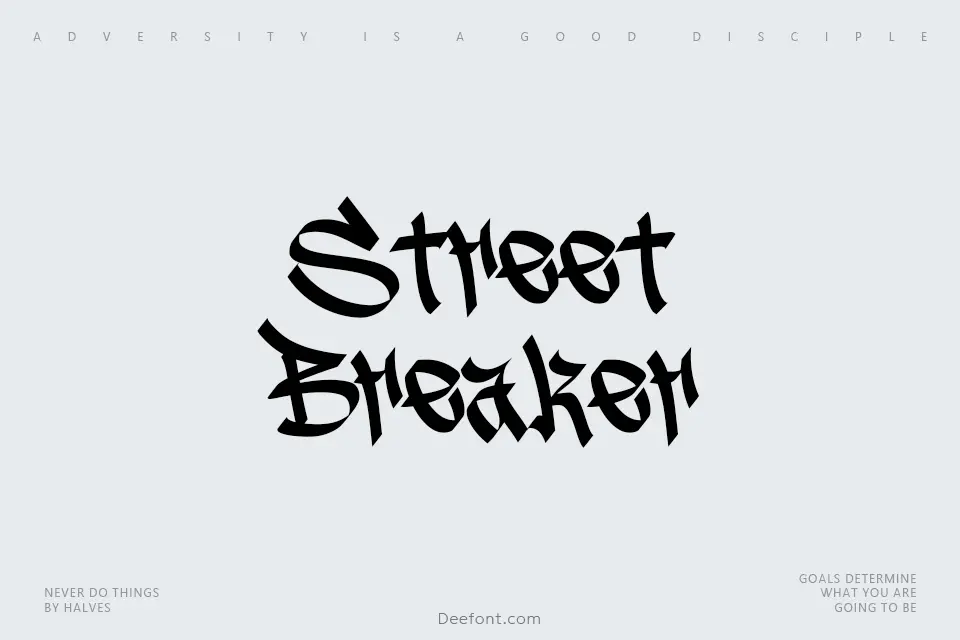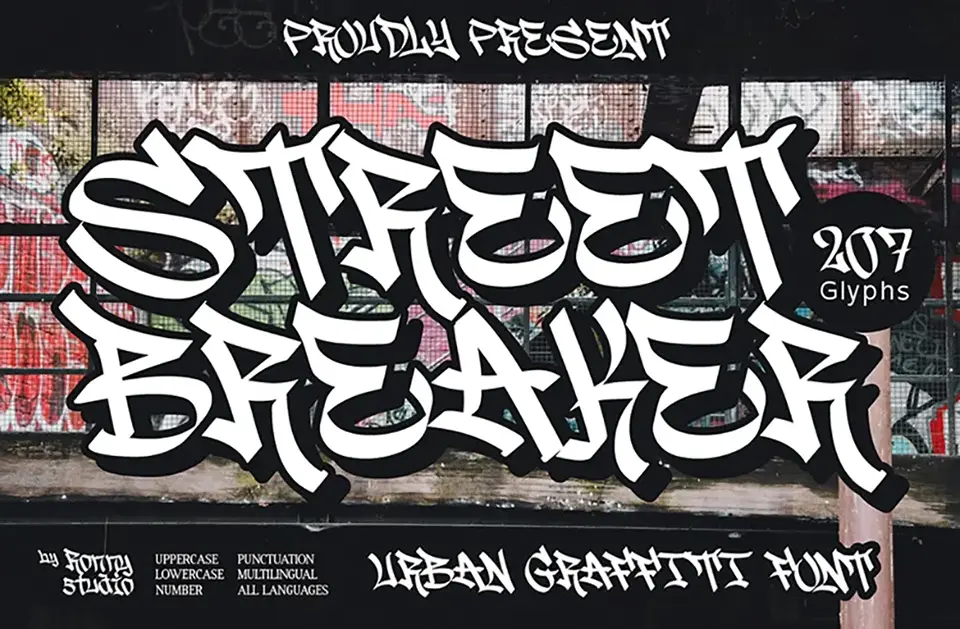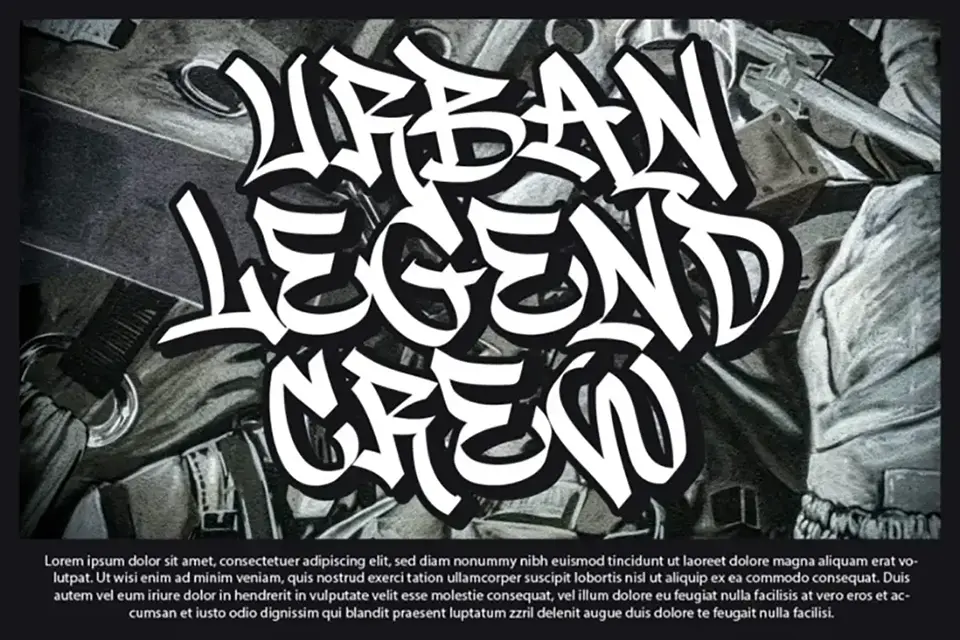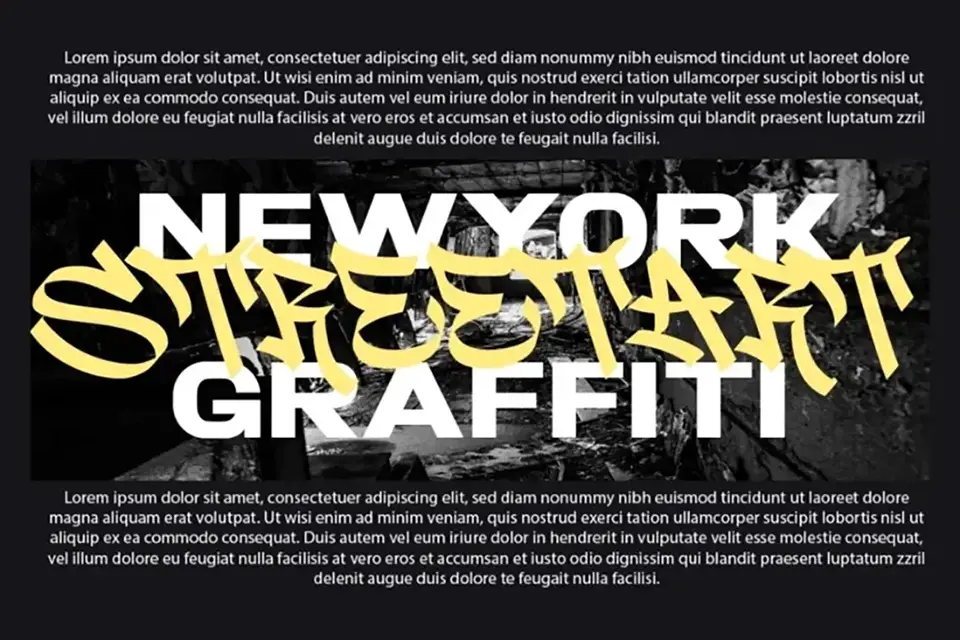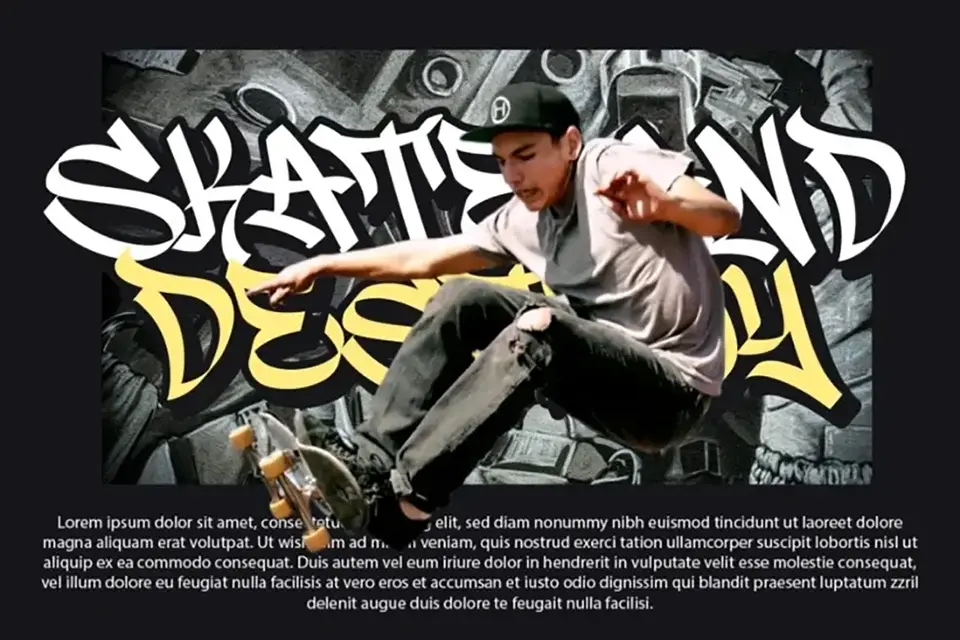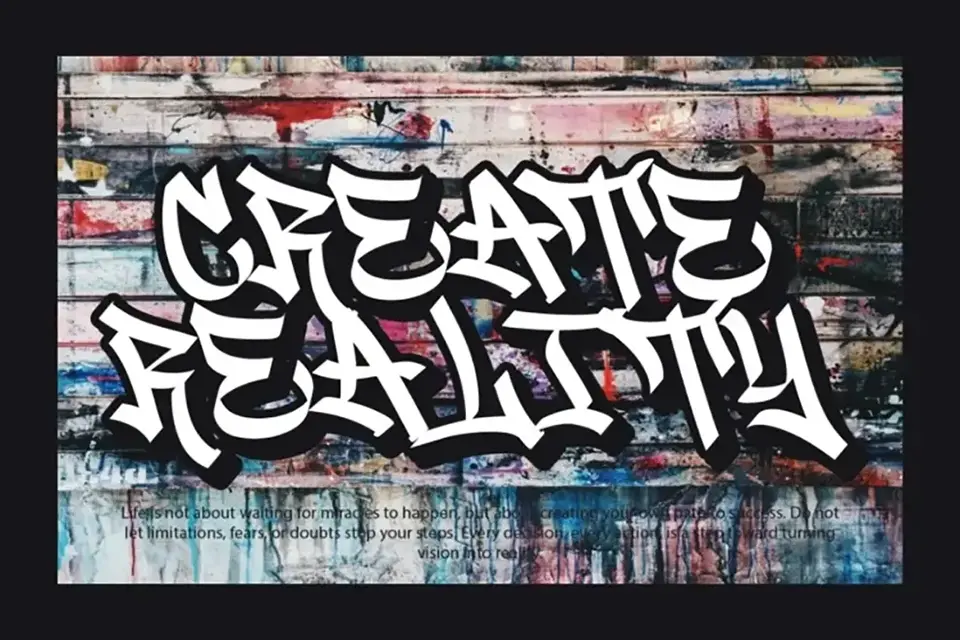
Street Breaker Font
Street Breaker is a dynamic script font inspired by bold graffiti and urban street art. Its energetic brushstrokes and playful character shapes make it ideal for eye-catching logos, posters, and social media graphics. With a strong, modern flair, Street Breaker delivers a sense of movement and creativity, perfect for projects that demand a vibrant, youthful touch. The font is available for personal use, with a commercial license offered separately from the designer.